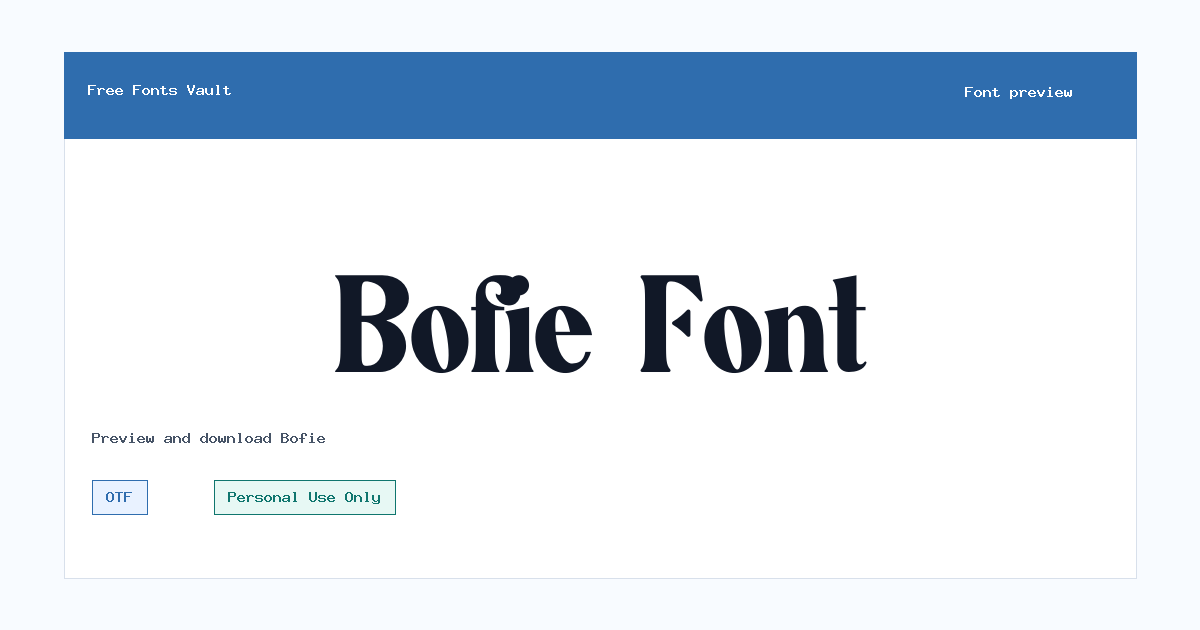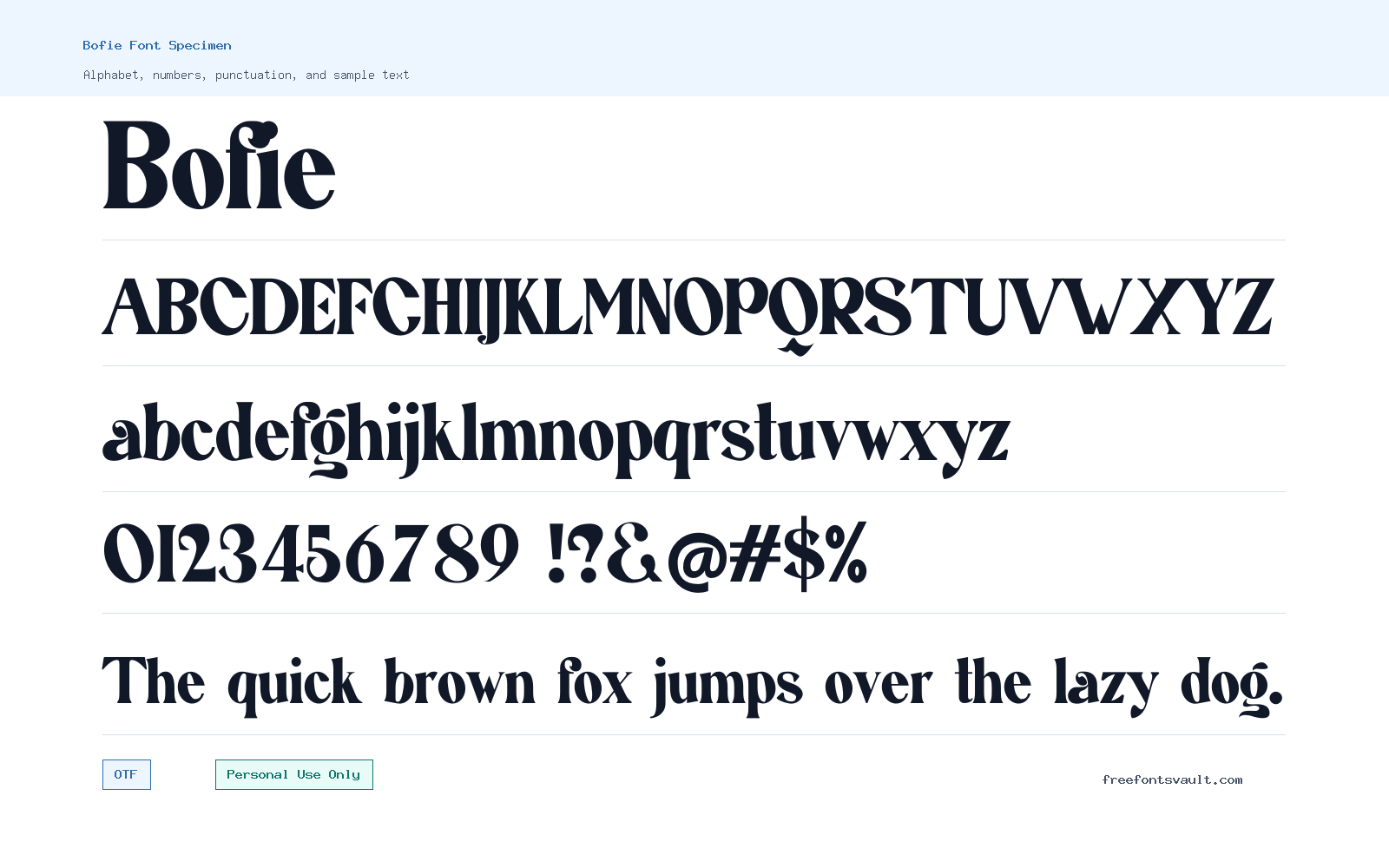
Bofie
Bofie Font
Bofie is a serif display font with a polished, decorative feel, best suited for short text where the letter shapes can stand out. It is available as an OTF font file and is marked for personal use only, so check the license carefully before using it in any client, business, or commercial project.
About Bofie Font
Bofie works best when you want a serif style that feels more expressive than a basic text face. Use it for titles, name treatments, poster headings, social graphics, invitations, packaging mockups, mood boards, or other designs where a few words need a clear visual presence. Because the available file is a regular-weight OTF, it is a simple install-and-test font rather than a large family with multiple weights.
For the best result, try Bofie first in the live preview with the exact words you plan to use. Display fonts can look great in names, initials, short phrases, and headings, but they may become harder to read in long paragraphs or small interface text. Test uppercase, lowercase, spacing, and punctuation before downloading so you can see whether the rhythm fits your layout.
• Serif display style suited to short, decorative text rather than long body copy.
• Headlines, posters, invitations, logo drafts, and name-based design mockups.
• Personal creative projects, social graphics, mood boards, and typography experiments.
Install the OTF file, then test Bofie at larger sizes where its serif details have room to show. Keep letter spacing balanced, avoid long paragraphs, and pair it with a plain sans serif or a quiet text serif if your design needs supporting copy.
What kind of projects is Bofie good for?
Bofie is best for short display text such as headings, invitations, poster titles, social graphics, logo drafts, and personal design experiments.
Can I use Bofie for body text?
It is better used for short text. For paragraphs, menus, or small captions, test readability carefully or pair it with a simpler font.